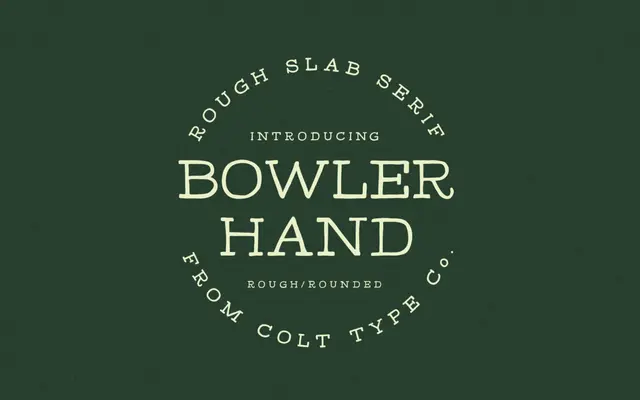
Bowler Hand Slab Serif
A hand-drawn slab serif created with a Rotring ink pen, offering a rough, vintage character across four weights.
Drawn by hand using a Rotring ink pen, this slab serif carries the natural irregularities and texture of analogue letterforms. Four weights from Light to Bold give enough range for display and editorial use where a vintage or craft aesthetic is wanted. The rough quality makes it better suited to short-form typesetting than extended body copy.
Described explicitly as a slab serif style with hand-drawn letterforms, giving it a rough, textured quality consistent with a hand-drawn slab subcategory.